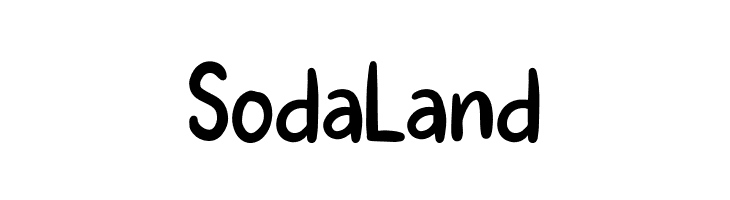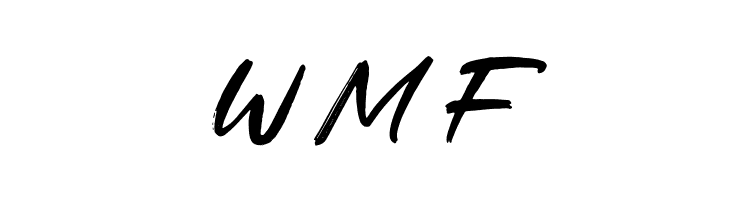
( Fonts by Pinisiart )
A bold, playful font with rounded edges and a lively, informal style.
( n )
A playful, outlined font with hollow letterforms and rounded edges.
( Fonts by Noah Type )
A bold, dynamic font with a playful, hand-drawn style.
( Fonts by Letterafa Studio )
A playful, monster-themed decorative font with intricate details.
( Fonts by Fahad Lami )
A playful, bold, and hand-drawn font with a whimsical style.
( Fonts by D K )
A bold, playful font with a hand-drawn, cartoon-like style.
( Fonts by Mabhal Studio )
A bold, playful font with thick strokes and a dynamic style.
( Fonts by Mabhal Studio )
A bold, three-dimensional font with an extruded shadow effect, perfect for impactful designs.
( Fonts by Mabhal Studio )
A bold, extruded font with a strong, decorative style.
( Fonts by Modestype Studio )
A bold and dynamic font with strong, impactful strokes and playful curves.
( Fonts by Modestype Studio )
A bold, playful font with a hand-drawn, quirky style.
( Fonts by Khurasan )
A playful, bold font with rounded edges and a unique shadow effect.
( Fonts by Khurasan )
A playful, bold font with rounded, thick strokes and a friendly appearance.
( Fonts by Khurasan )
A playful, rounded font with bold, smooth curves and a friendly appearance.
A playful, handwritten font with smooth, flowing lines and a casual, friendly appearance.
A playful, hand-drawn font with tall, narrow letters and a whimsical style.
A playful handwritten font with fluid, organic strokes and a casual vibe.
A playful, hand-drawn font with rounded edges and a whimsical style.
A casual, elegant handwritten font with fluid, natural strokes.
A lively, handwritten font with fluid strokes and a personal touch.